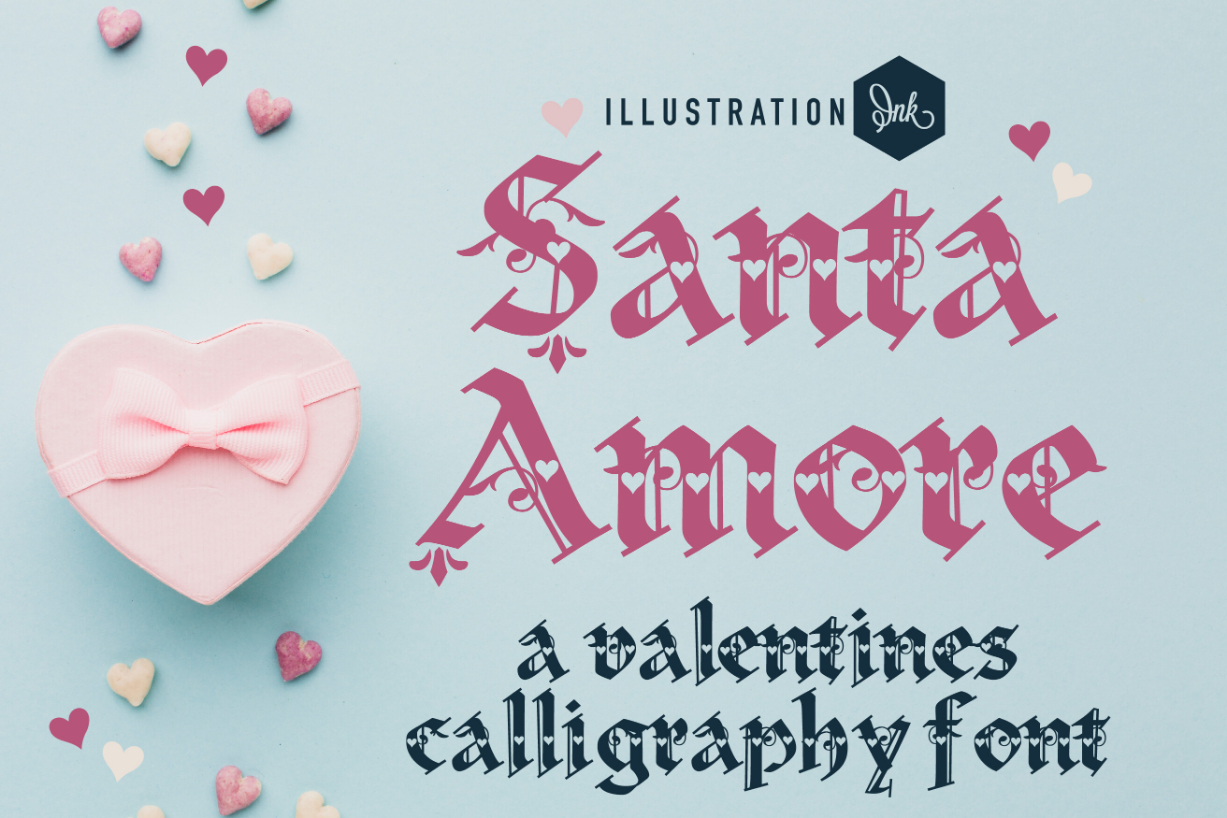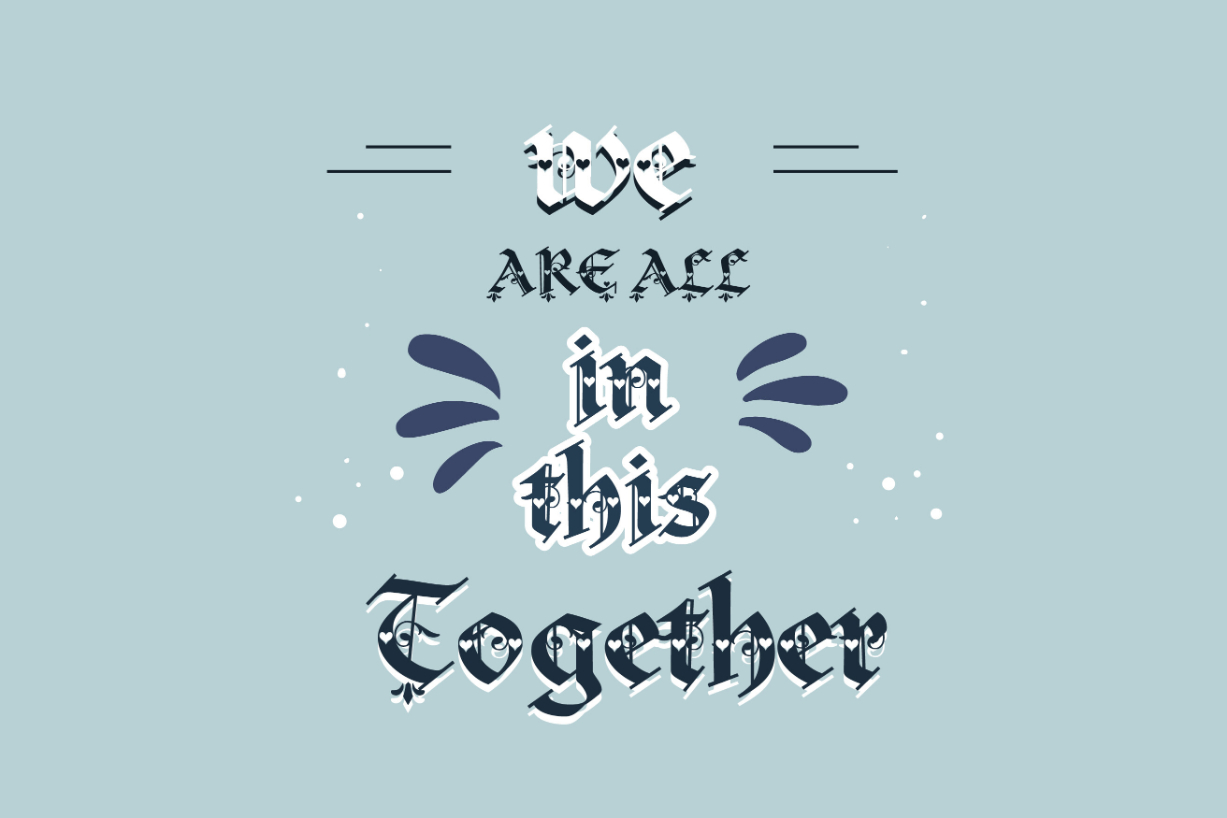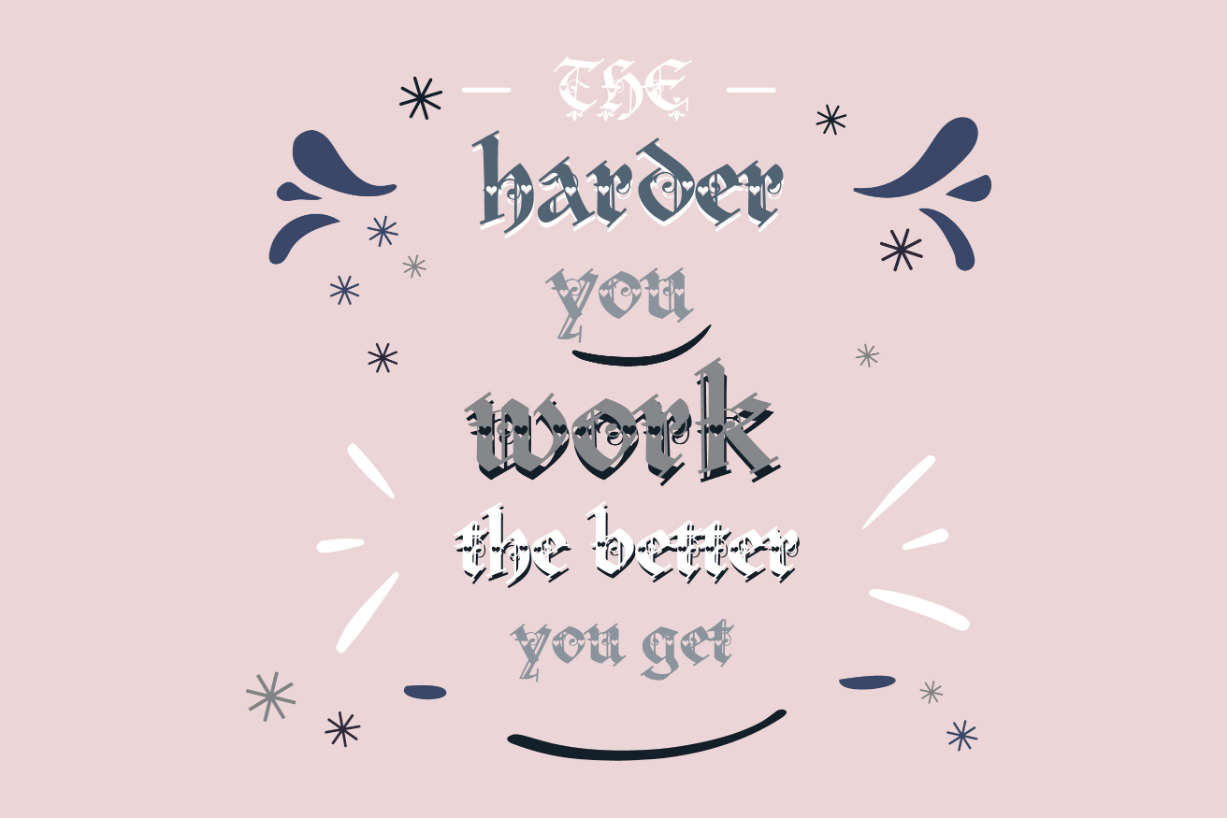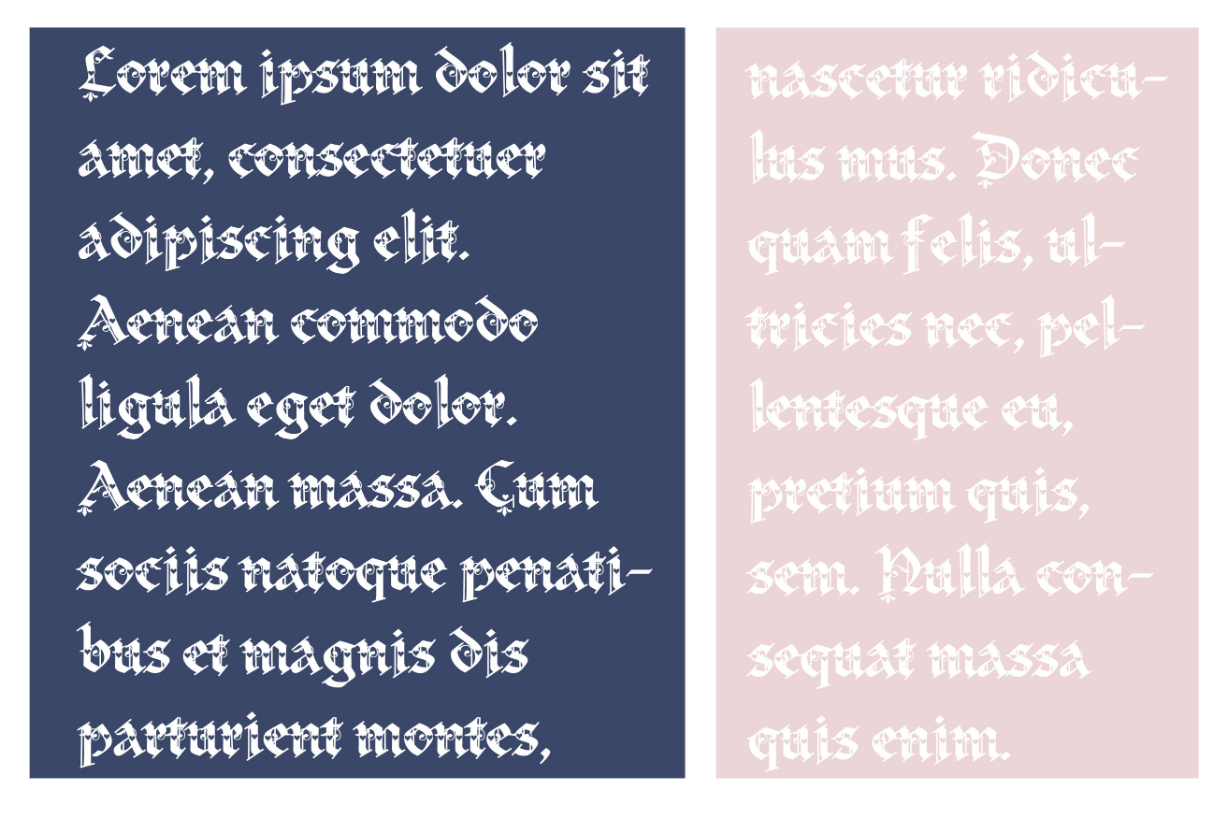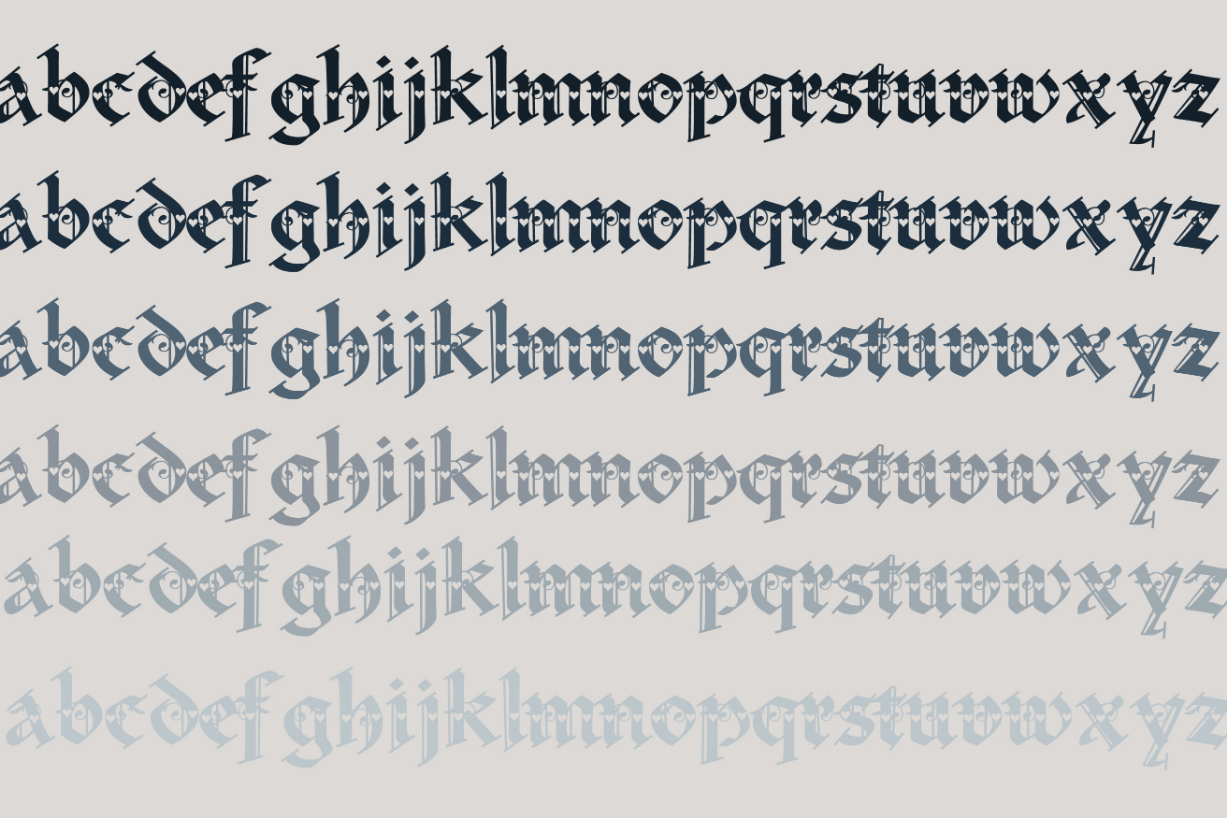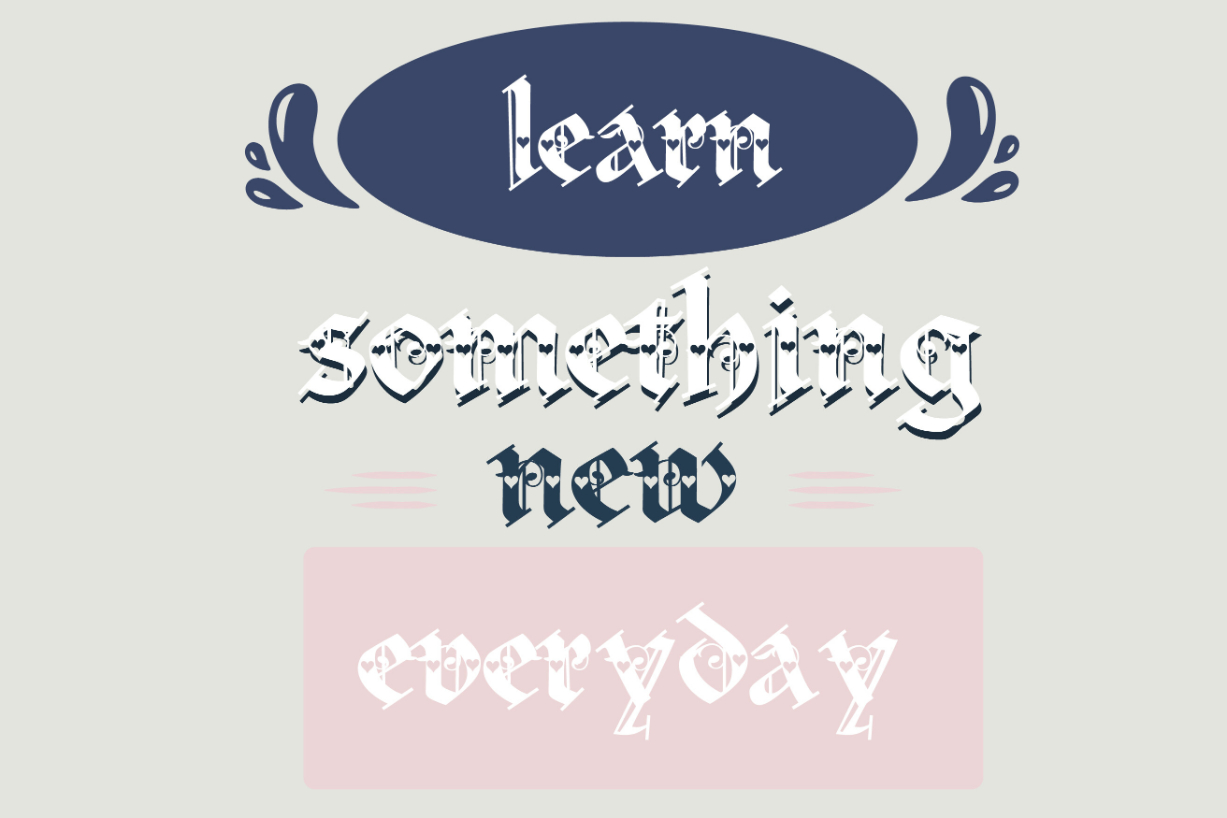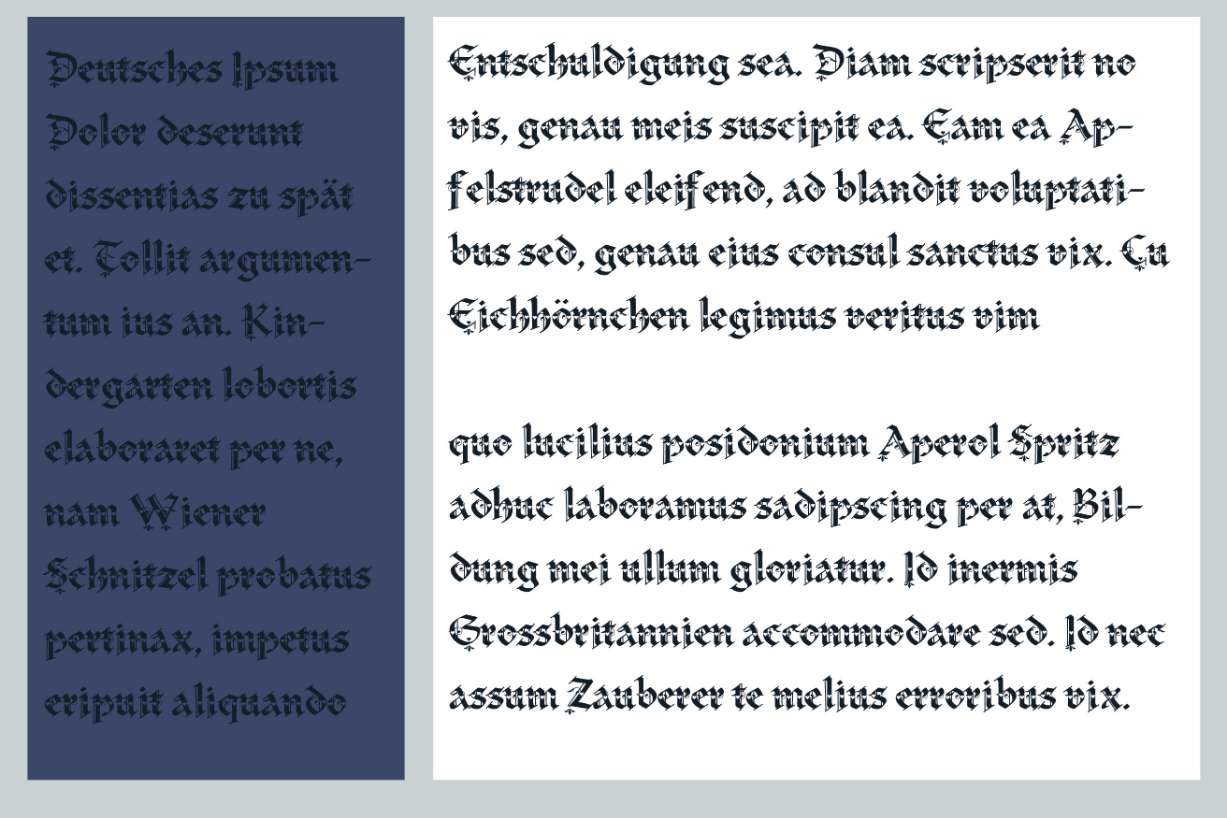
Santa Amore Font
About Santa Amore Font
This formal, old-school, Gothic calligraphy font sports flourishes and hearts.
No matter the topic, this font will be an incredible asset to your fonts’ library, as it has the potential to elevate any creation.